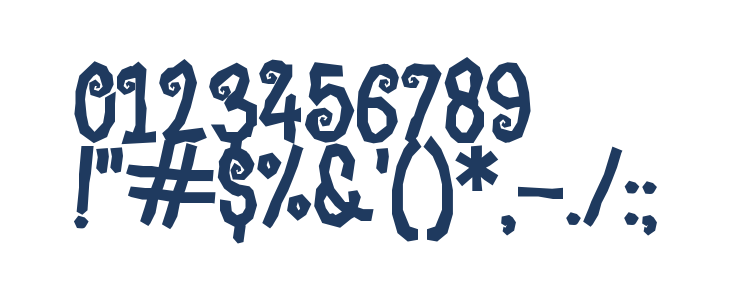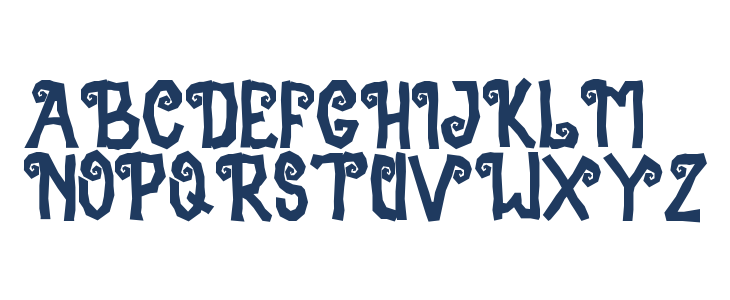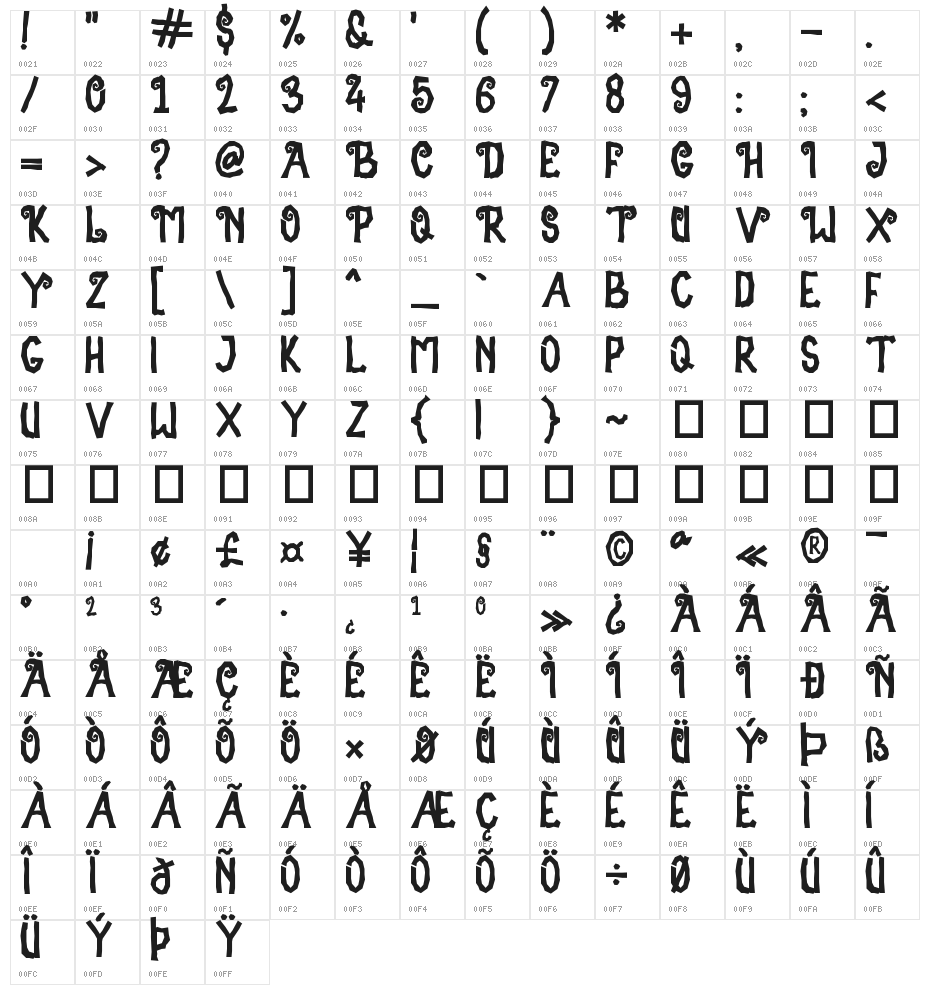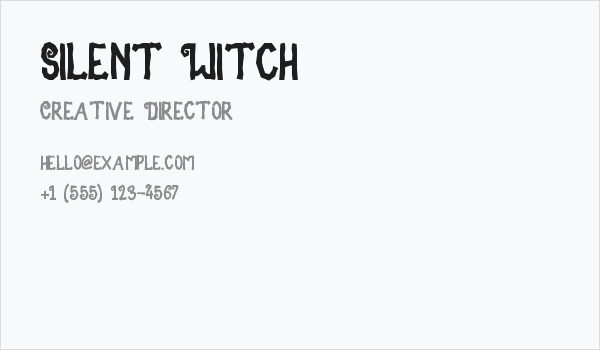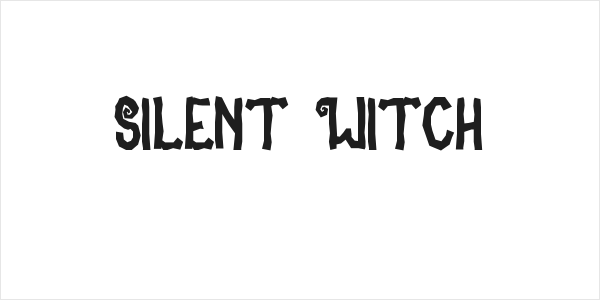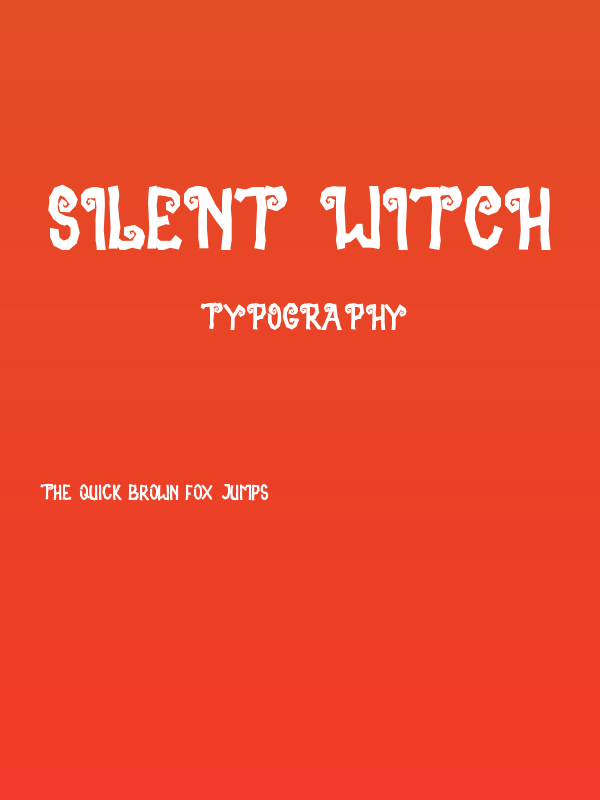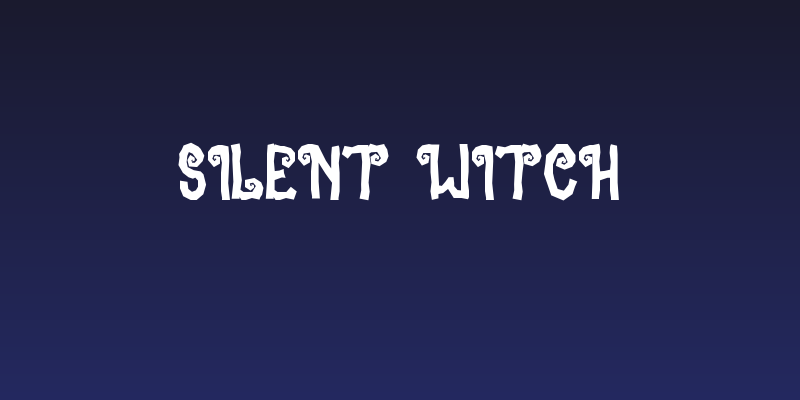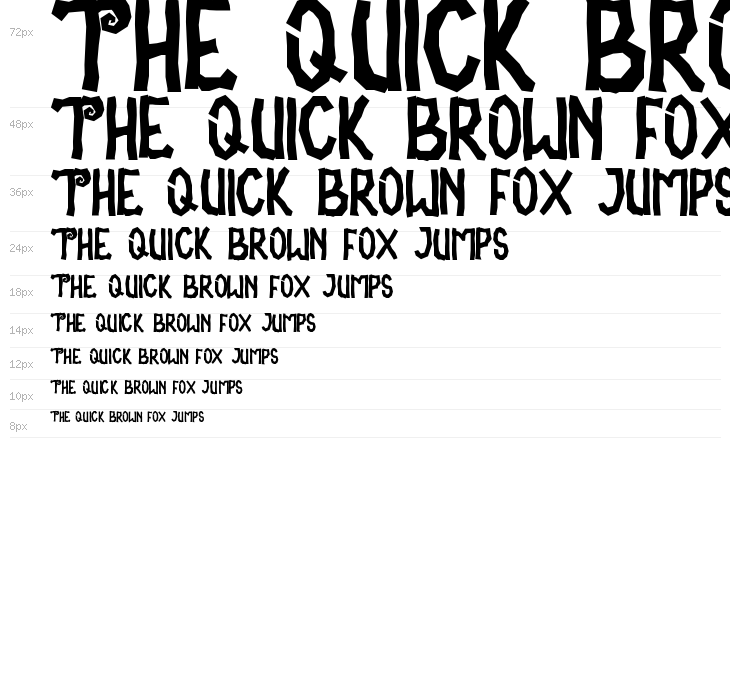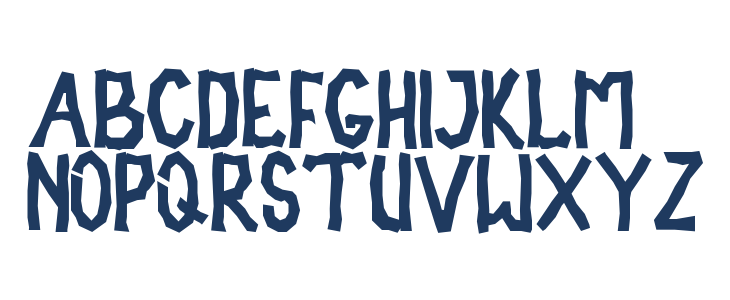
Silent Witch Font
Silent Witch Description
| Overall Style | Decorative, Playful, Whimsical, Fantasy |
| Use Case | Headlines, Posters, Logos, Book Covers |
| Proposed Projects | Halloween posters, fantasy book covers, children's event flyers, themed party invitations, game titles. |